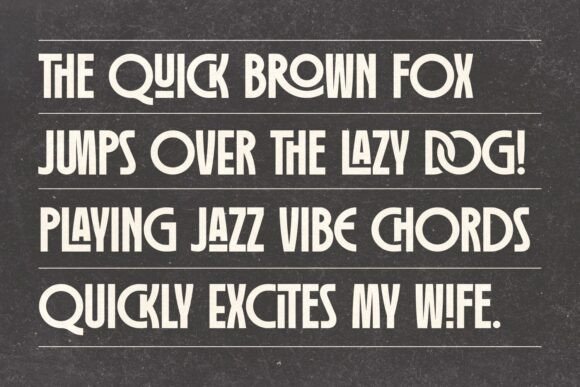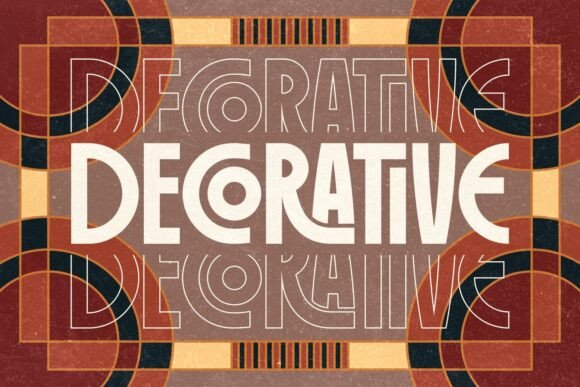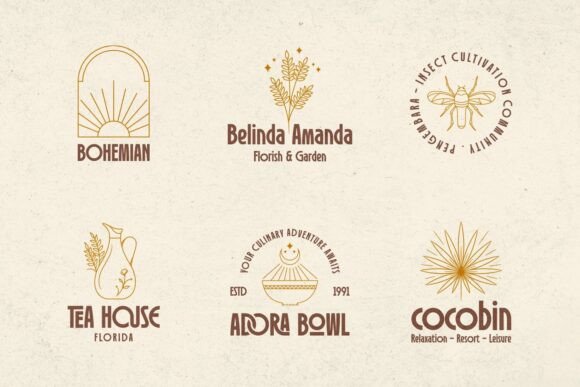
Introduction to Robinco Font
Robinco is a modern ligature art deco style font.
This font embodies a timeless combination of luxury, boldness, and geometric elegance, making it perfect for designs that seek to evoke a sense of classic sophistication and modernity This font is suitable for trendy packaging label designs, unique desired logos, poster designs, fashion, and many more.
Key Features of Robinco Font
Why Choose Robinco Font?